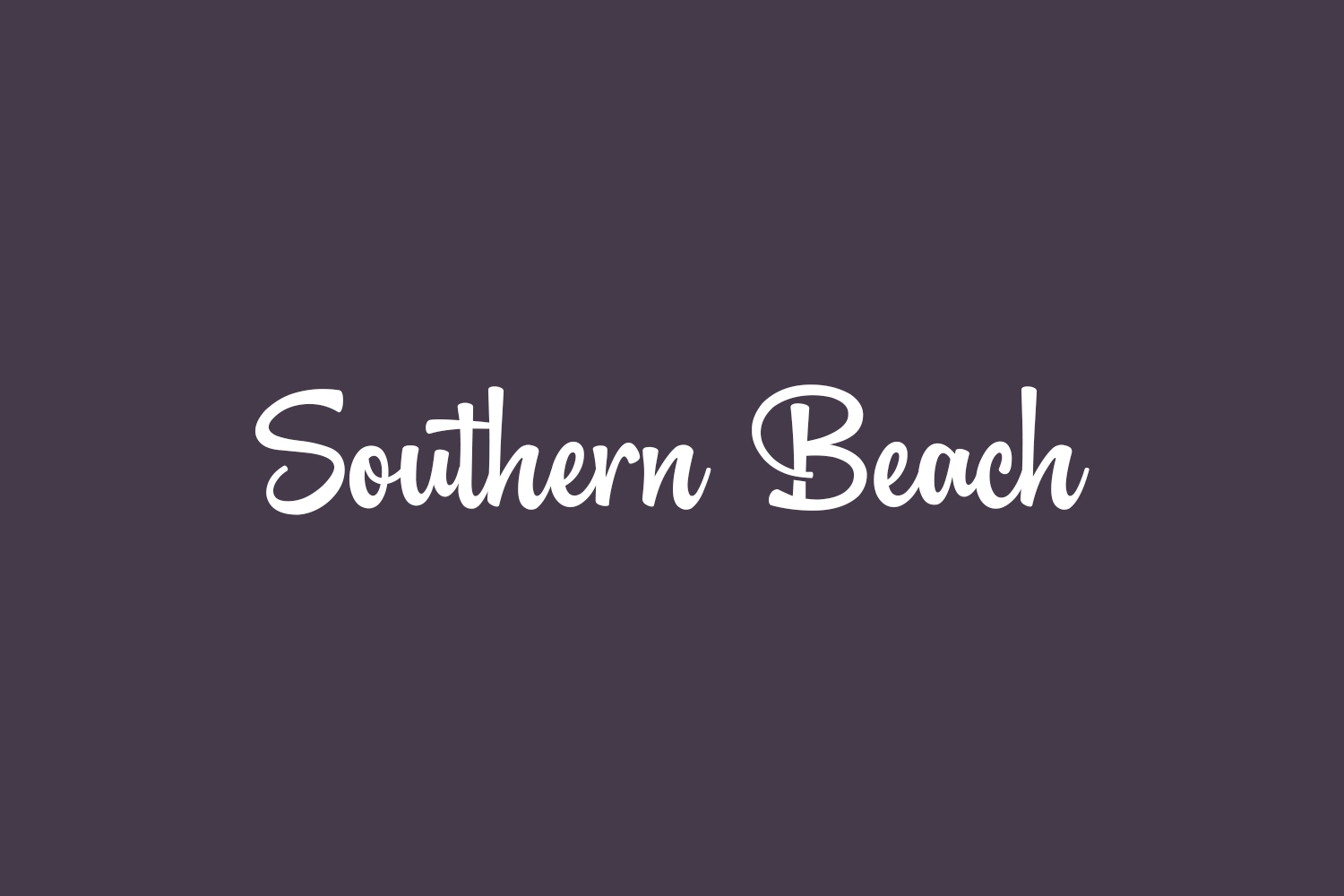
Introducing Southern Beach Free Font – a relaxed and artistic paint brushed script font. This font is the ideal choice for a wide range of applications, including branding, invitations, stationery, wedding designs, captivating social media posts, eye-catching advertisements, alluring product packaging, stunning product designs, charming labels, mesmerizing photography, elegant watermarks, special events, and much more. Embrace the versatility and beauty of “Southern Beach” in your projects today. Southern Beach Free Font is free for personal use only. Please purchase the full version for commercial use.
Designed by Sronstudio